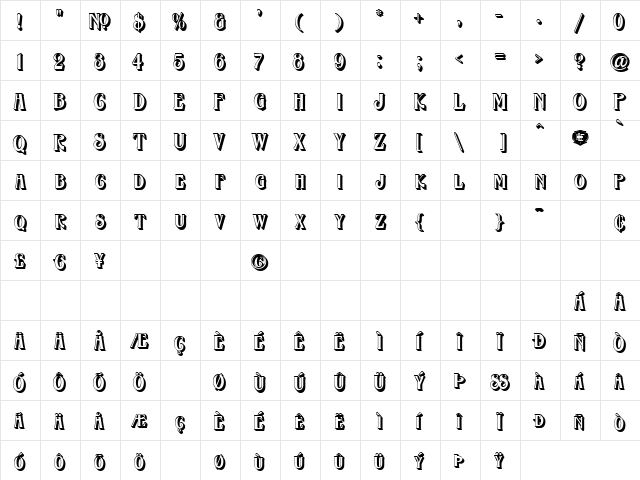
LHF Havana SHADOW Regular
Design Context for LHF Havana SHADOW
LHF Havana SHADOW is built around its visual character rather than neutral utility - its distinctive forms are designed to make an impression at display sizes.
Font Pairing: Pair with a clean neutral sans-serif for body copy to let LHF Havana SHADOW's character lead without overwhelming the composition.
Pro Tip: Use LHF Havana SHADOW exclusively at display sizes - it was designed to be seen, not read at length. Let a neutral companion handle body copy.